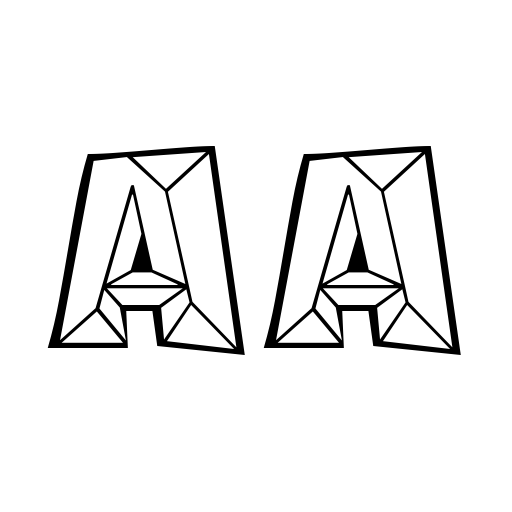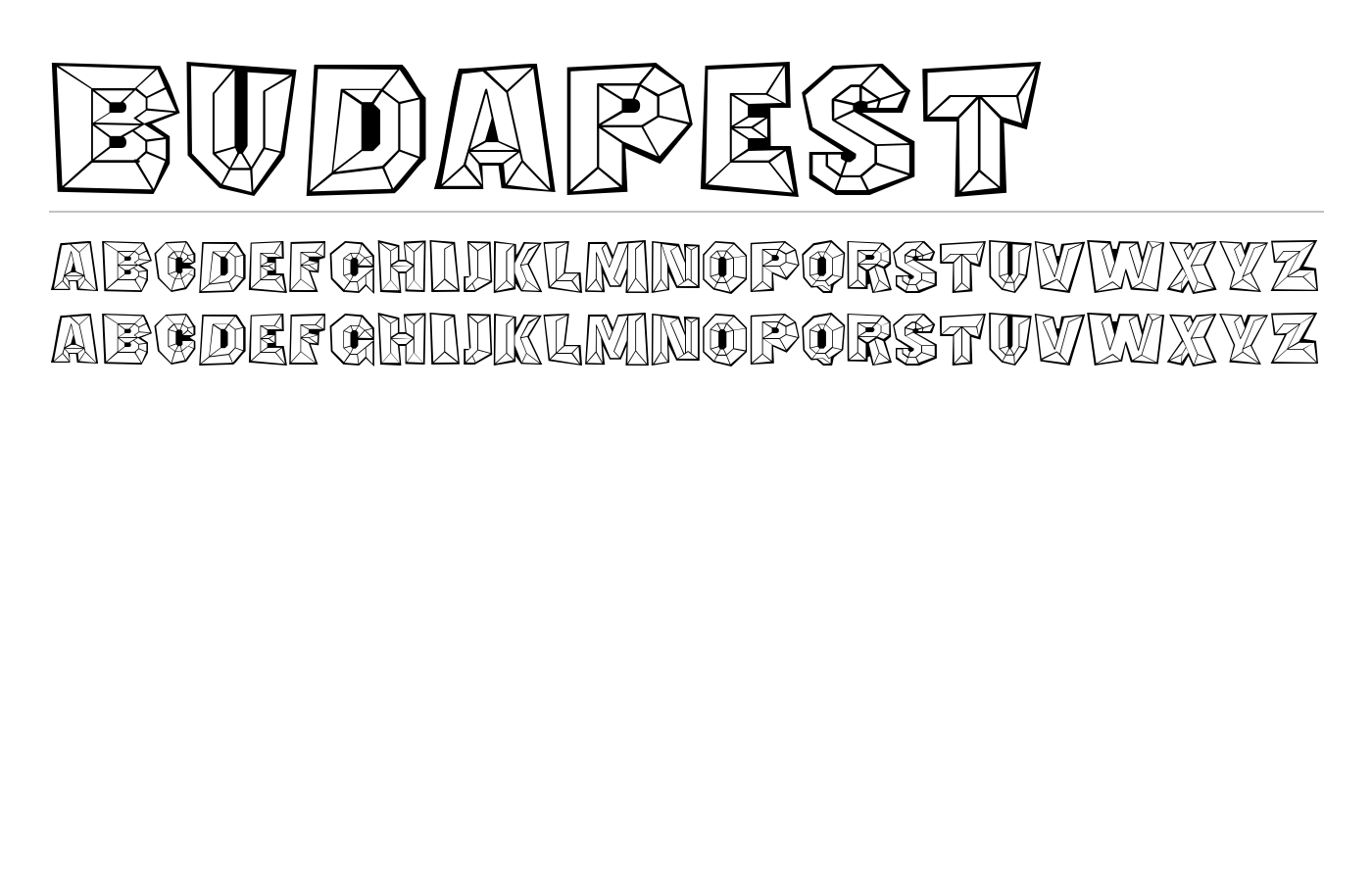
Budapest Font is a bold, geometric display typeface characterized by its faceted, crystalline letterforms that give a striking, three-dimensional effect. Its angular lines and segmented shapes create a modern, edgy personality perfect for eye-catching headlines, branding, and creative projects that require a futuristic or architectural vibe. This font works especially well where unique impact and a sense of innovation are desired.
Budapest Font
About Budapest Font
| Font family | Budapest Font |